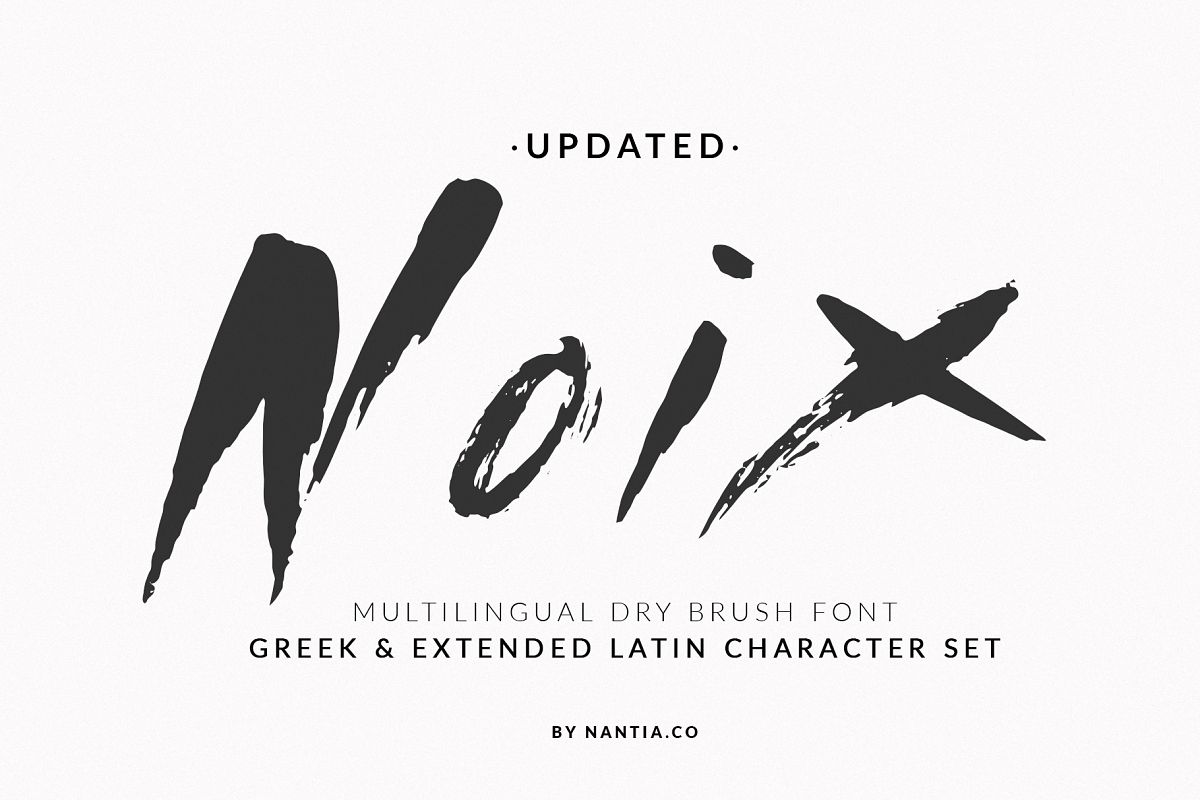
Noix Greek Dry Brush Font
And this is my latest Dry Brush Font "Noix"
The Noix Dry Brush Font is a handmade dry brush font. It is a decorative font, with which you can achieve a rough handwritten-type lettering feeling. This font's raw energy can instantly transform any graphic design project in to a bold statement. It is ideal for Instagram quotes, blogs and any kind of marketing material.
• Extended Latin
• Greek
• punctuation marks and
• numerals